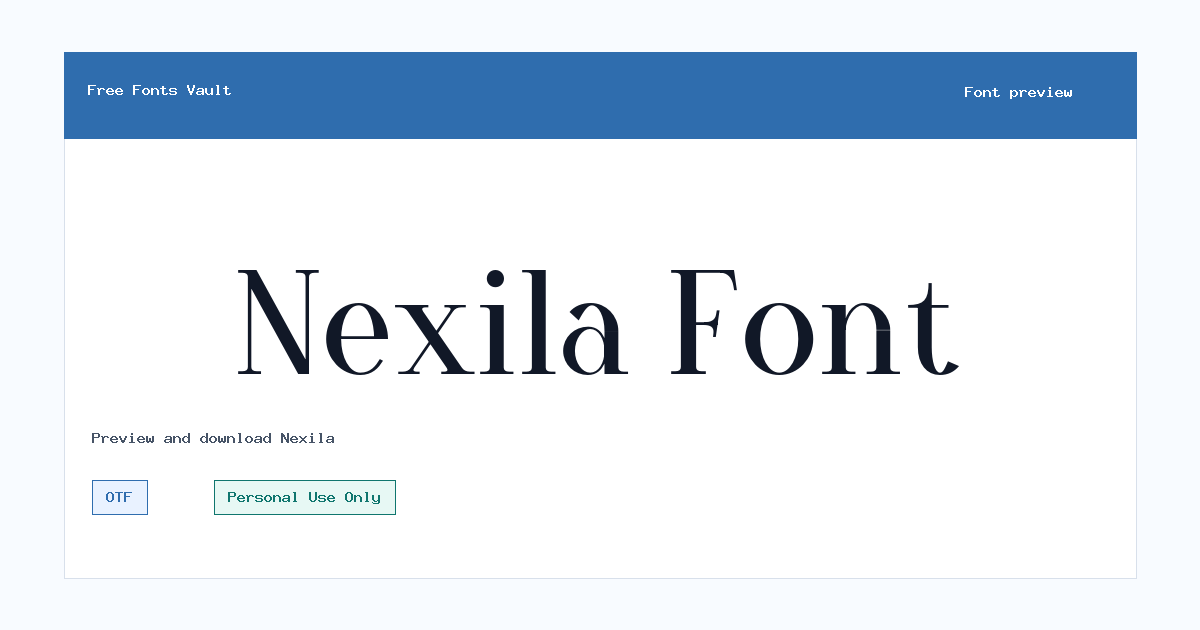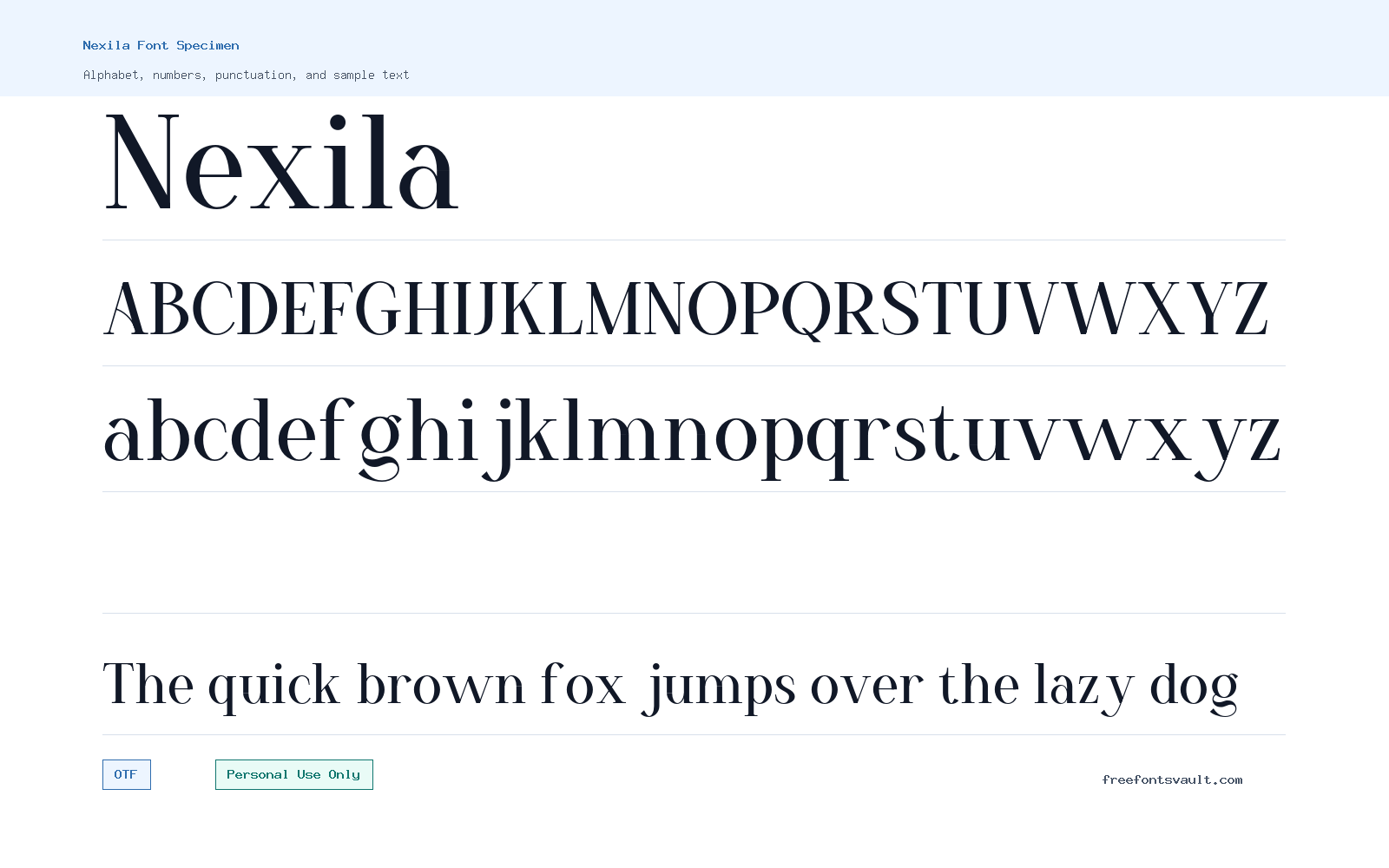
Nexila
- Designer Say Studio
Nexila is a serif font from Say Studio with a Regular OTF file for personal design work. It is a good choice to test when you need a more refined text style for titles, display lines, invitations, or elegant branding drafts.
About Nexila Font
Nexila works best when you give it room to show its serif character. Use the preview box to try short words, names, initials, and headline phrases before downloading, because a serif display style can feel very different at large and small sizes. For a polished result, test it in title case, all caps, and lowercase. Some serif fonts look graceful in a logo-style wordmark but become harder to read in long paragraphs, so check spacing and letter shapes with the exact wording you plan to use.
The downloadable font file is an OTF Regular style, with normal style and 400 weight listed for the font file. That makes it straightforward to install and test in common design apps, but it also means you should not expect a full multi-weight family from this download. If your layout needs bold, italic, or multiple text weights, pair Nexila with a simple sans serif for body copy, captions, menus, and supporting details. A clean geometric sans, a neutral grotesque, or a quiet humanist sans can help the serif heading stand out without making the design feel crowded. Keep Nexila for the visual focus: cover titles, social graphics, quote cards, packaging mockups, wedding stationery drafts, and other places where a small amount of text needs a composed look.
For readability, start by testing the font at the real size you will use. Thin details, tight curves, or decorative serif shapes may lose clarity on small mobile screens, low-resolution images, or busy backgrounds. If the letters feel too close together, add a little tracking for uppercase headings. If the design feels too formal, balance it with generous white space and a plain secondary typeface. Before using it in a client project, product, logo, template, advertisement, or any other commercial setting, review the license terms carefully.
- Serif font style suited to short display text and polished headings
- Elegant headings, name designs, quote graphics, invitations, and editorial-style titles
- Personal mockups, branding drafts, packaging concepts, and social media visuals
Who designed Nexila?
Nexila is credited to Say Studio.
What is Nexila best used for?
It is best tested for short, polished text such as headings, invitations, quote images, name designs, and personal branding drafts.
Should I use Nexila for long paragraphs?
Use caution with long text. Test readability at the intended size, and consider pairing it with a simpler font for body copy.